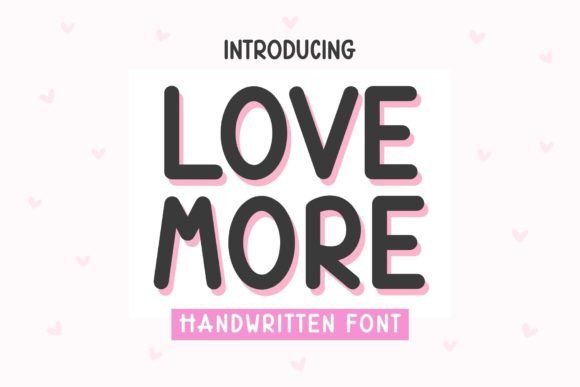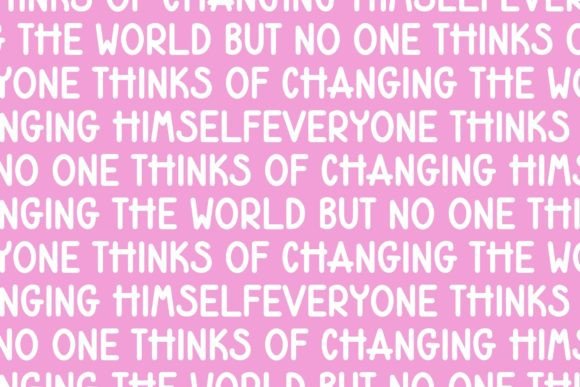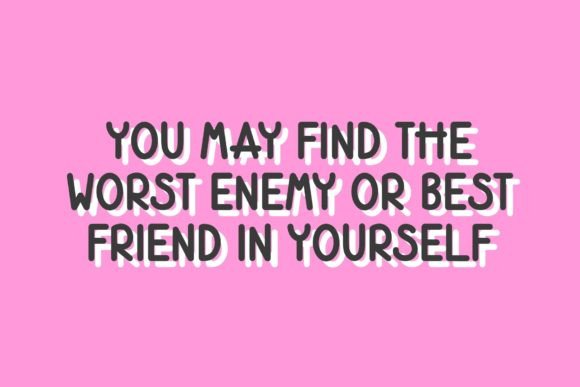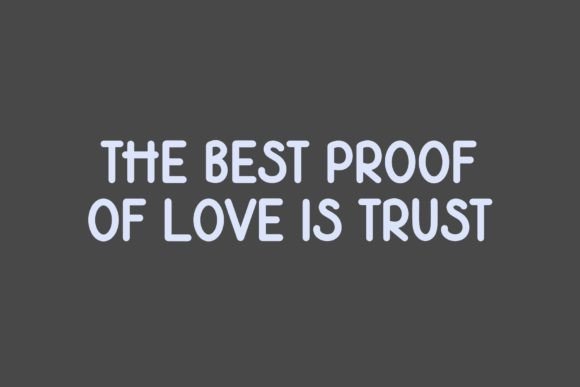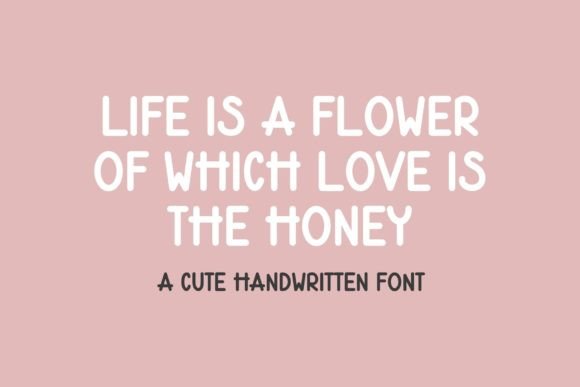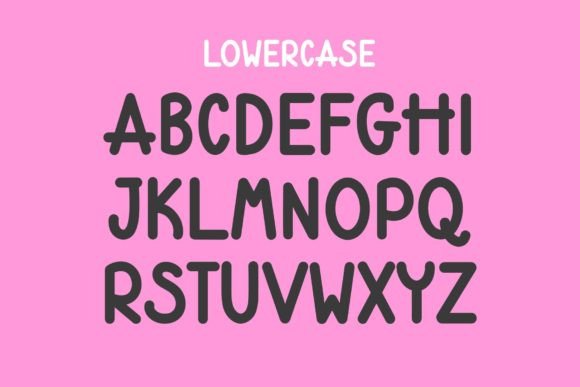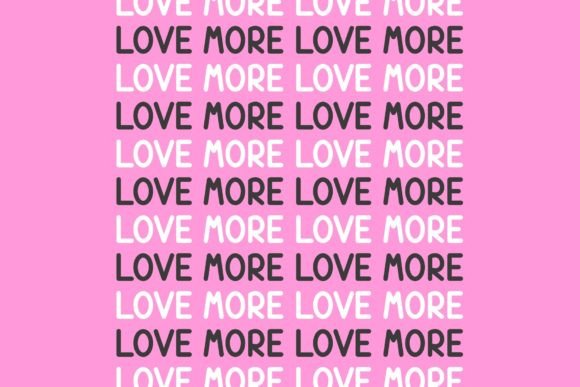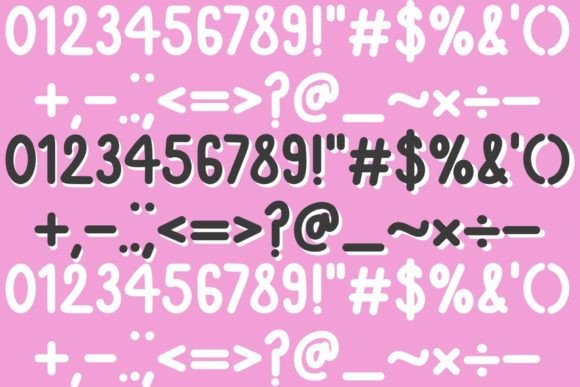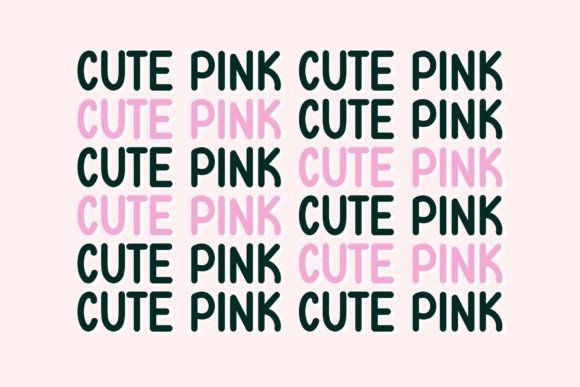
Love More Font
Love More is a sweet and friendly handwritten font. Its natural and unique
style makes it incredibly fitting to a large pool of designs. The only limit is
your imagination!